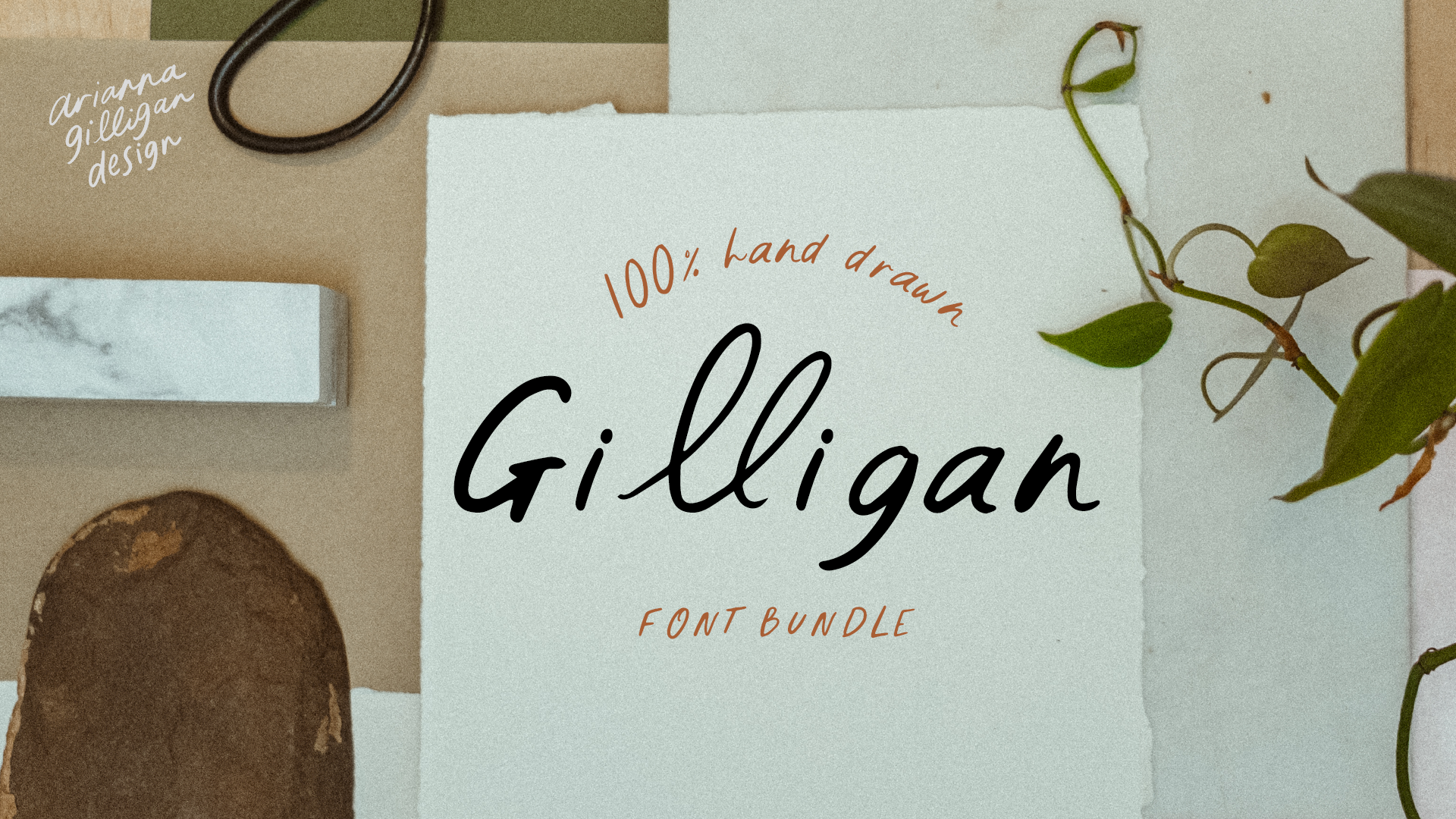
Gilligan Hand Drawn Font Bundle
This playfully artistic font bundle was designed in efforts to inspire a hand-crafted look and feel. The Gilligan series includes organic silhouettes and portrays both a nostalgic and creative vibe.
I can envision this series being used to decorate a modern suite of invitations or even compliment an array of web-based graphics. My favorite details being the effortless application and naturally inspired ligatures.